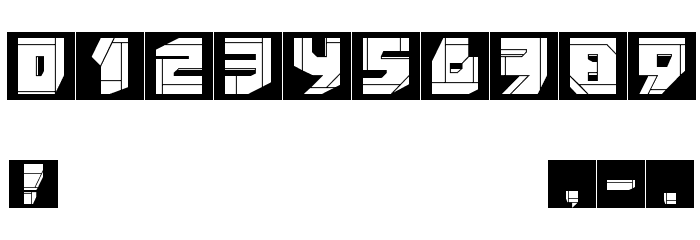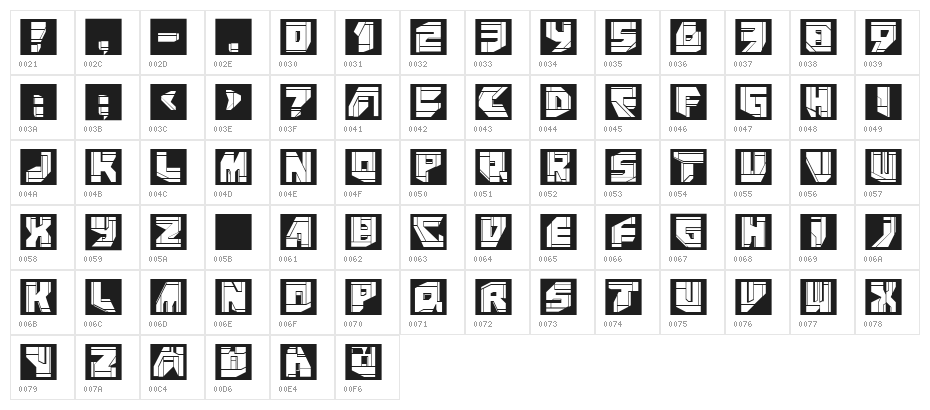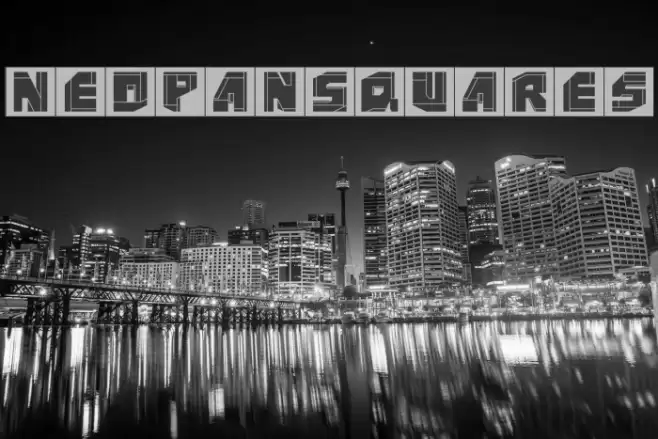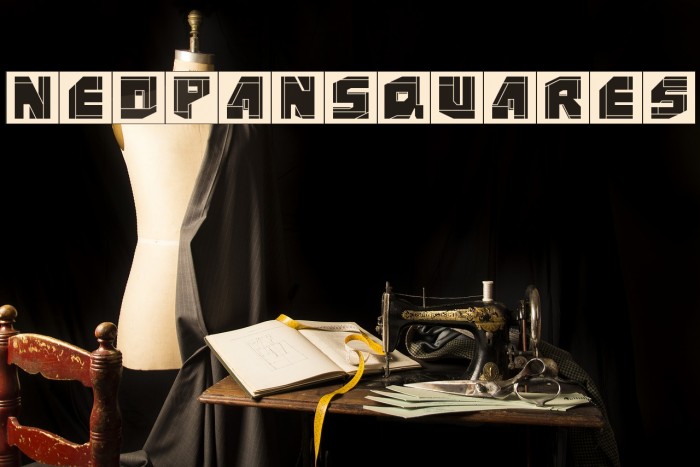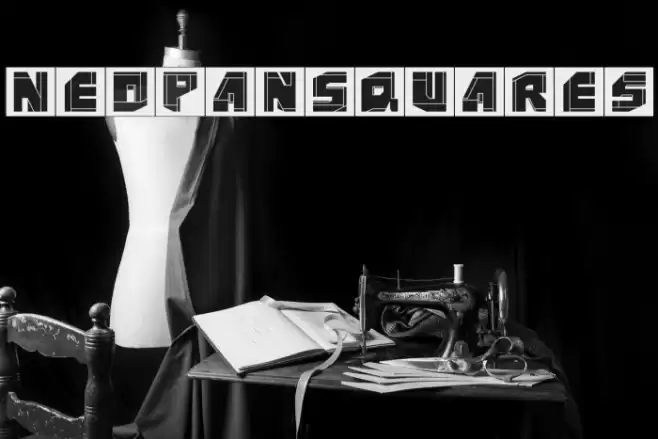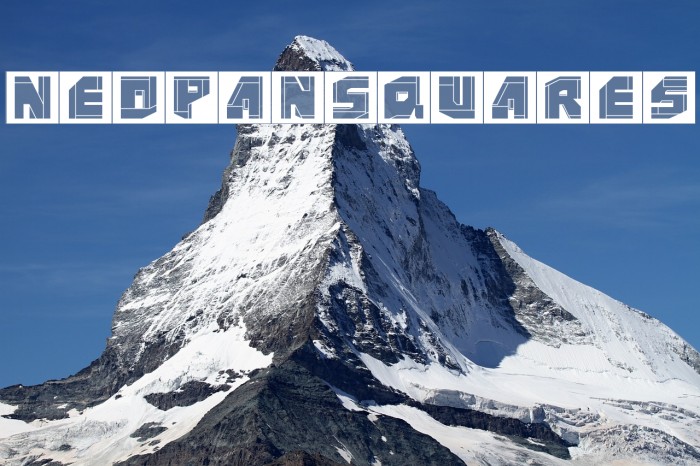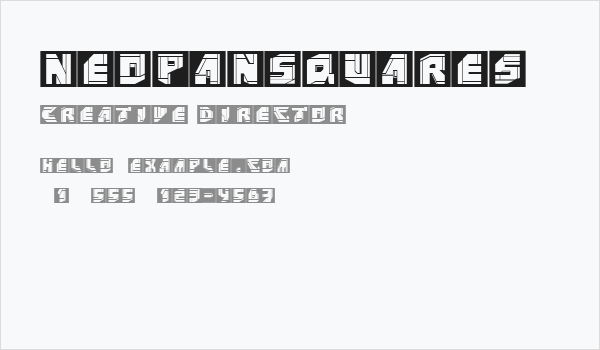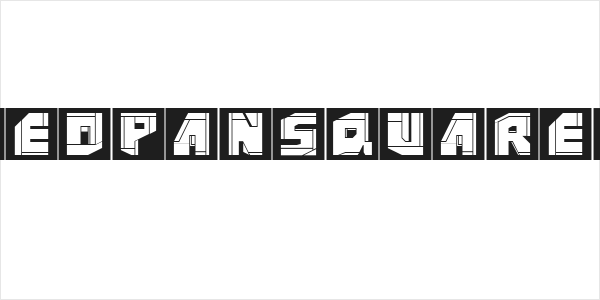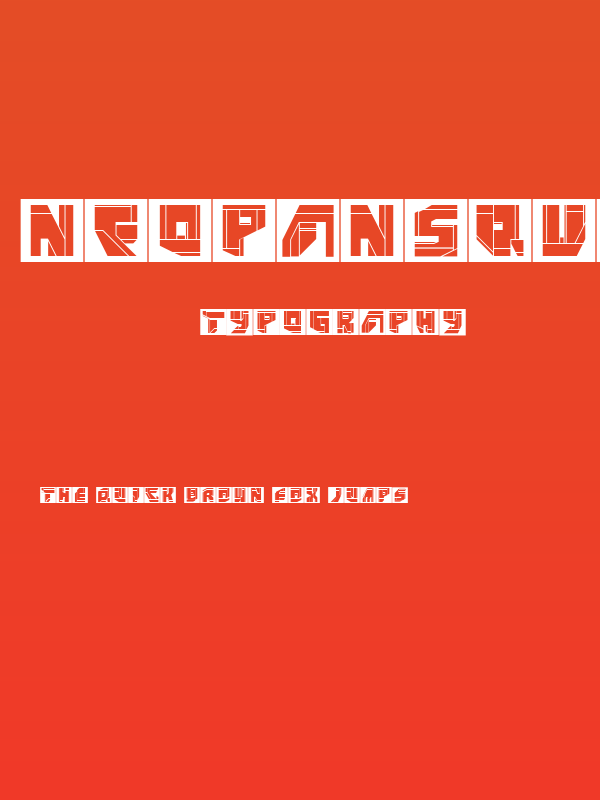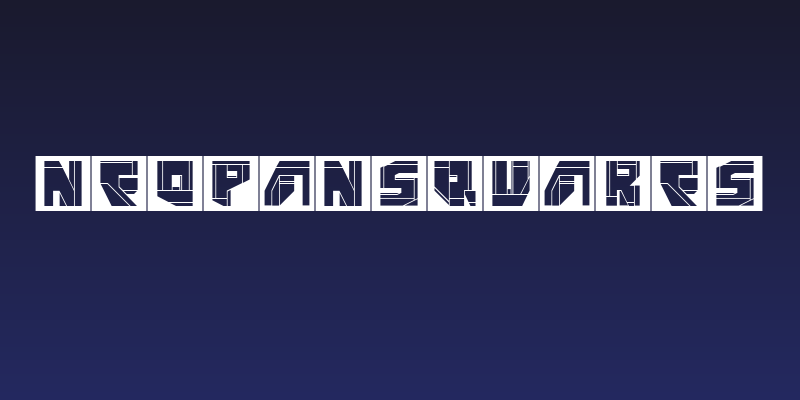
NeoPanSquares Font
NeoPanSquares Description
This font features a bold, geometric design with a futuristic and digital aesthetic. Each character is enclosed within a square, creating a uniform and structured appearance. The letters and numbers are composed of angular lines and sharp edges, giving them a distinct, modern look. The use of negative space within the squares adds an intriguing visual element, enhancing the font's overall style. This design is particularly eye-catching and would stand out in any digital or print medium.